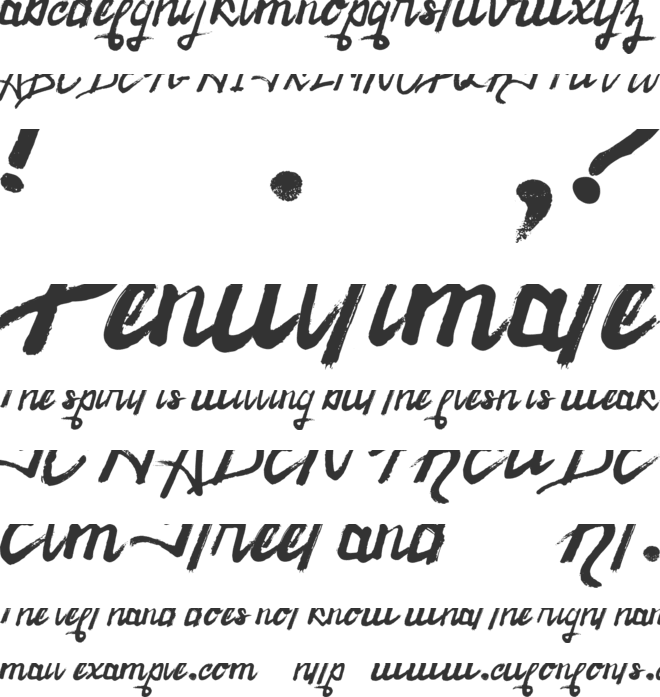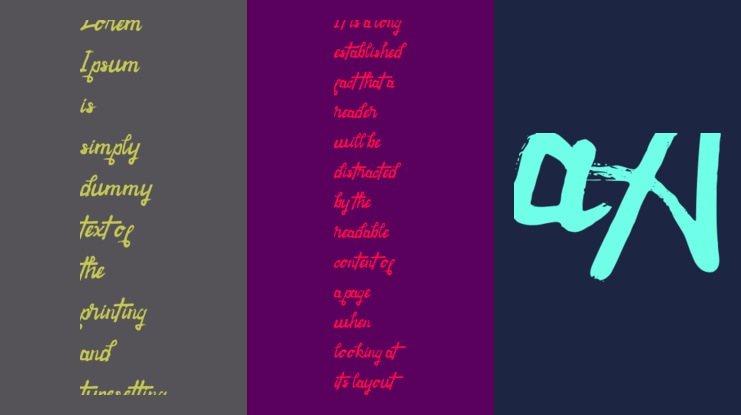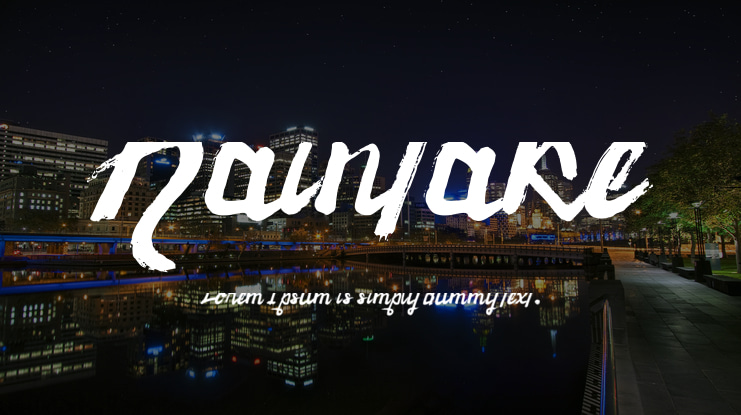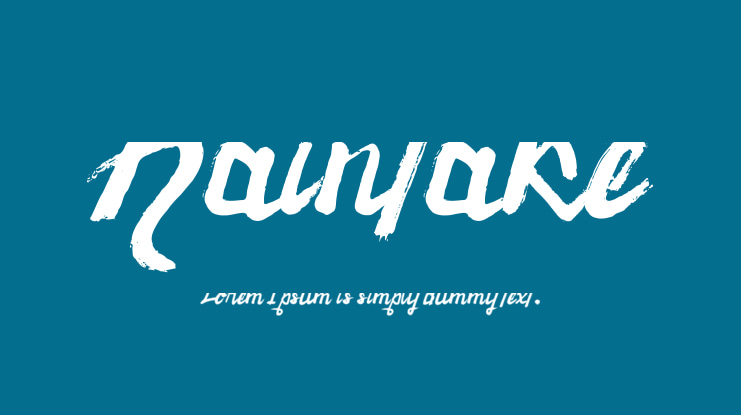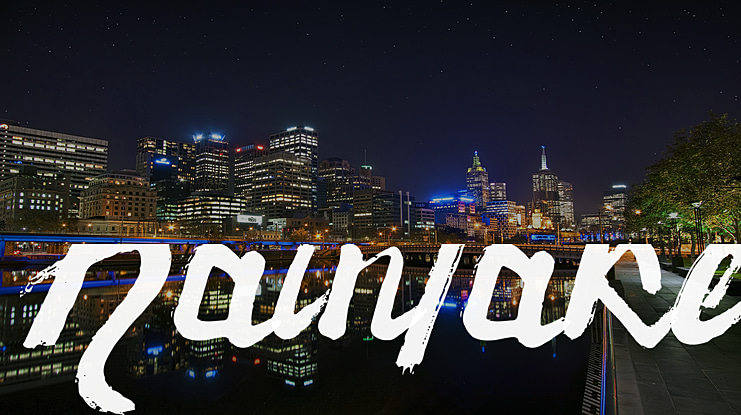
Raintake Font
Raintake demo fonts are free for personal use only. I create this with my almost empty brush pen. Also please visit our store for other font collection on https://graphicriver.net/user/ssi_scraps/portfolio https://www.creativefabrica.com/designer/syukursetiyadi/. be kind to check my Instagram @ssi.scraps Million thanks for visiting my store and buy my fonts. Any donation also very appreciated. just click the donate button or send me to email to  thank you